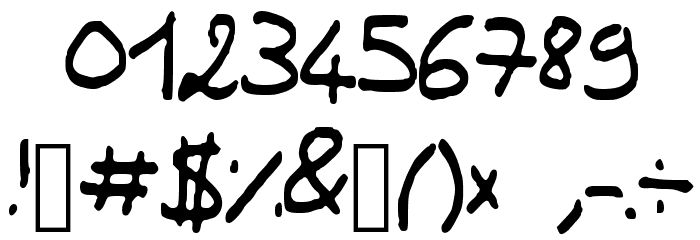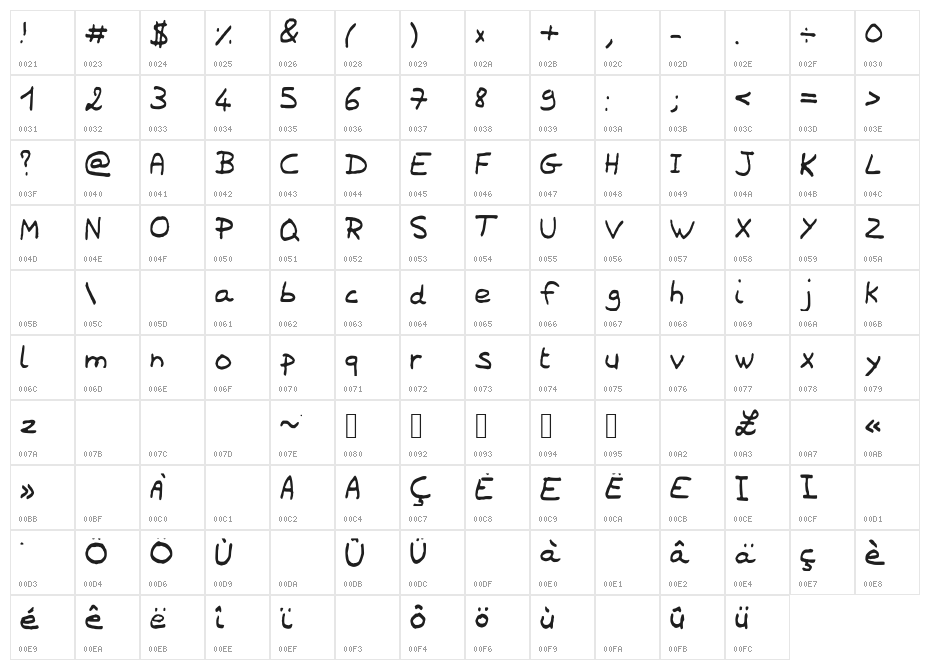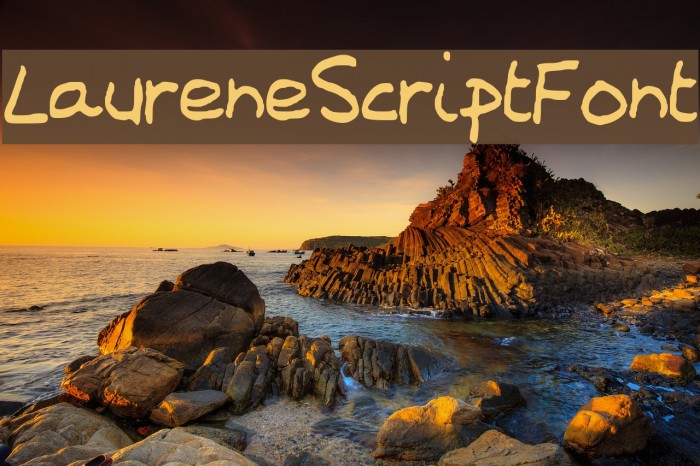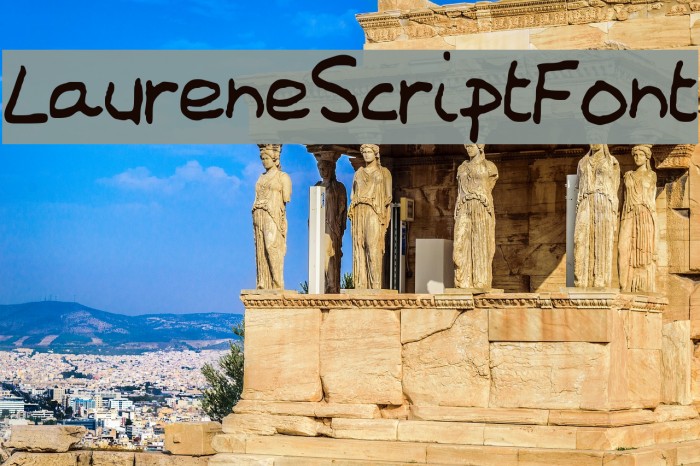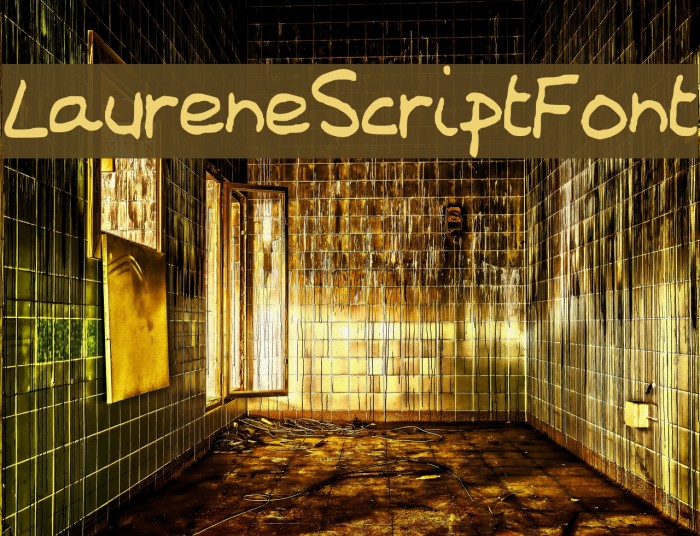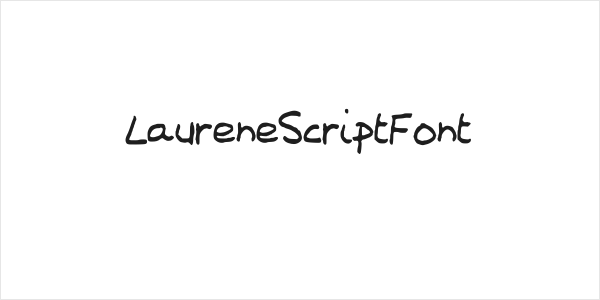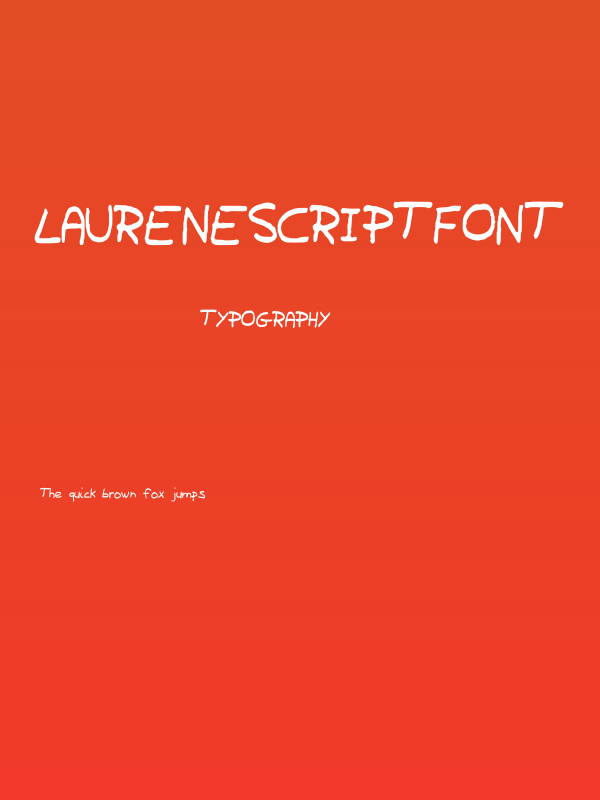
LaureneScriptFont Font
LaureneScriptFont Description
This font features a playful and informal handwritten style, characterized by its irregular strokes and casual appearance. The letters have a slightly uneven baseline, giving it a natural, hand-drawn feel. The uppercase and lowercase characters maintain a consistent style, with rounded edges and varying stroke widths that add to its charm. The numbers and special characters follow the same aesthetic, ensuring a cohesive look across all elements. This font is ideal for projects that require a personal touch, such as greeting cards, invitations, or creative branding.
| Use Case | Headlines, Logos, Informal text |
| Proposed Projects | Greeting cards, invitations, creative branding, personal projects. |